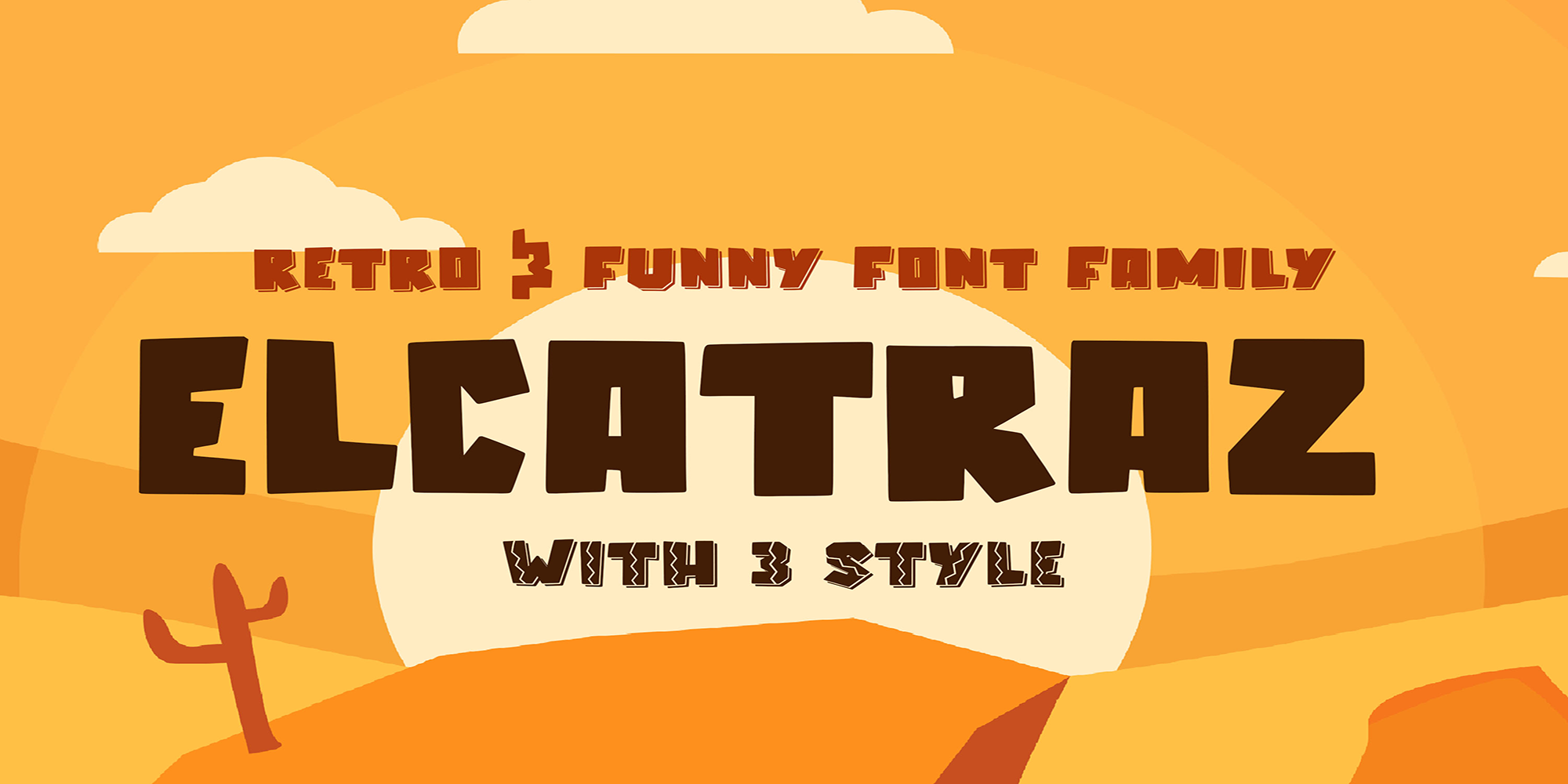
Elcatraz Font excels in crime thriller book covers, prison-themed entertainment designs, law enforcement branding, security company logos, escape room marketing materials, detective agency graphics, courthouse signage displays, legal drama promotions, justice system communications, and criminal investigation presentations. Its institutional character makes it perfect for projects requiring authority and secure containment appeal that commands respect and attention.
What makes Elcatraz Font exciting is its powerful representation of institutional authority through bold letterforms that capture the uncompromising strength and secure reliability of correctional facilities and law enforcement systems. The font features rigid, fortress-like shapes with authoritative proportions that evoke maximum security environments while maintaining excellent official readability. Its institutional character transforms text into declarations of order and justice that project unwavering authority and systematic control.
The Elcatraz Font family includes Regular, Bold, Heavy, Security, Prison, Authority, and Lockdown variations. Each style preserves the font's institutional essence while offering different levels of security intensity and correctional weight for creating authentic law enforcement graphics. The comprehensive character set includes security symbols, correctional ornaments, authority markers, and justice glyphs essential for genuine institutional and law enforcement typography projects.
Law enforcement agencies and security professionals consistently choose Elcatraz Font Free Download for projects demanding authoritative institutional typography solutions. The font's secure character instantly establishes correctional credibility while ensuring clear communication across law enforcement marketing channels. Its versatility spans from subtle authority touches to bold statements that celebrate the essential role of justice systems in maintaining social order and security.
Whether you're developing security brand identities, creating law enforcement materials, or designing correctional communications, Elcatraz Font provides the perfect combination of institutional authenticity and professional functionality. The font's rigorously crafted letterforms ensure consistent performance while maintaining the authoritative strength that makes justice systems such vital components of civilized society.
The correctional heritage of Elcatraz Font makes it exceptional for establishing credible presence in security and law enforcement sectors. Its institutional precision and authoritative appeal work seamlessly across traditional correctional documentation and modern digital security platforms. The font maintains its secure character across various law enforcement applications and professional justice communications.
Enforce authority with Elcatraz Font and discover how authentic institutional typography can enhance your security projects with genuine correctional appeal and authoritative reliability. This remarkable typeface combines correctional tradition with contemporary functionality, making it indispensable for law enforcement professionals seeking to project uncompromising authority and systematic control in security environments.